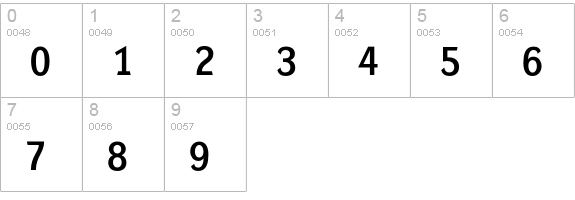
Dynamo L D font is a modern and sleek typeface that exudes a sense of energy and dynamism. Its bold, geometric shapes and clean lines make it perfect for creating eye-catching designs that demand attention. The font is versatile and can be used for a variety of purposes, from logos and branding to headlines and posters. What sets Dynamo L D font apart is its unique blend of strength and sophistication, making it a great choice for projects that require a balance of power and style. Whether you're designing a cutting-edge website or a sleek corporate identity, this font is sure to make a bold statement. Best of all, Dynamo L D font is available for free download at FontsMarket.com. So go ahead and unleash your creativity with this striking typeface that is sure to leave a lasting impression.